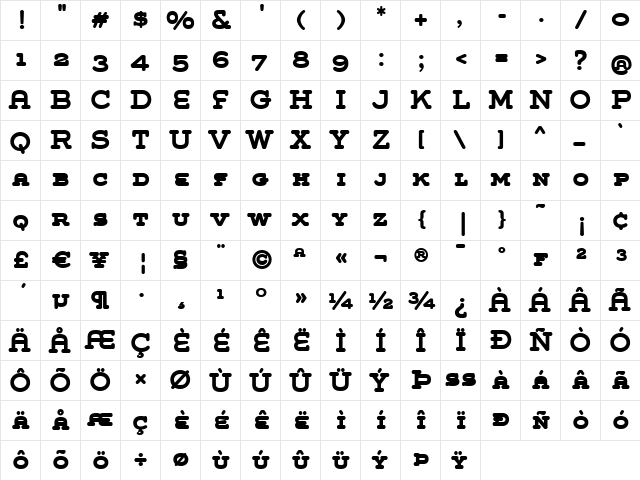
Grover Slab Caps Bold
Design Context for Grover Slab Caps Typeface
Grover Slab Caps combines the readability of serif typography with the visual weight of a slab construction, resulting in a typeface that feels both authoritative and approachable. The heavy weight commands attention and anchors typographic hierarchies.
Suited to magazines, political campaign materials, bold packaging, and any setting where authority matters.
Pro Tip: Use Grover Slab Caps for headlines and subheadings where its slab serifs can make an impression. It also holds up well in mid-size body copy thanks to its sturdy construction.